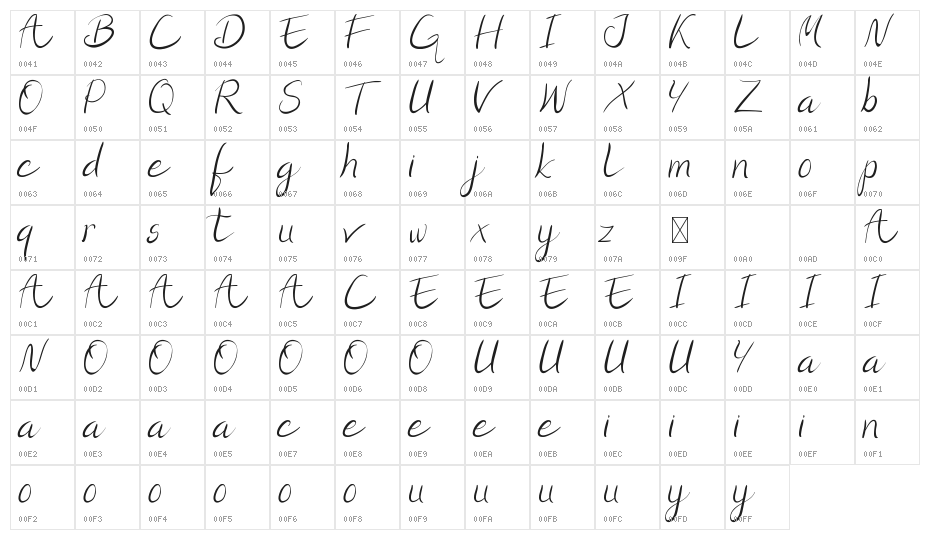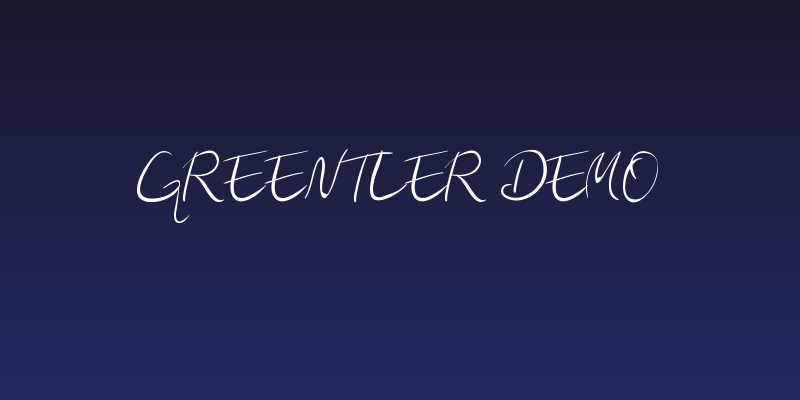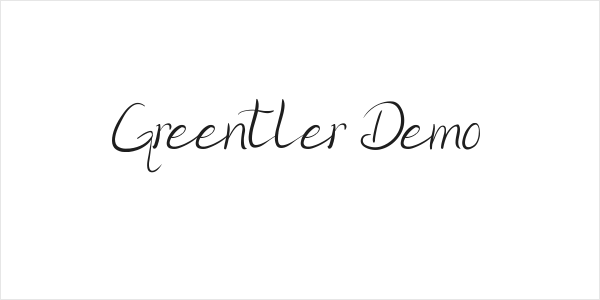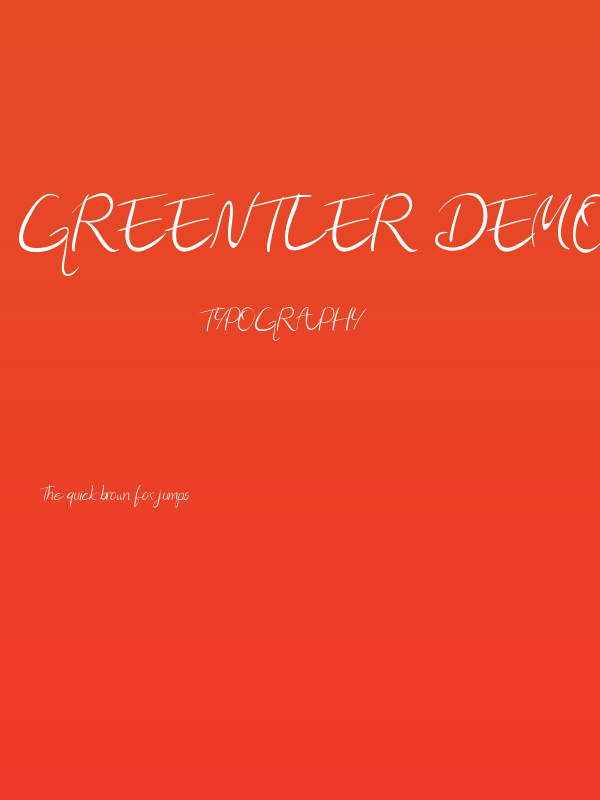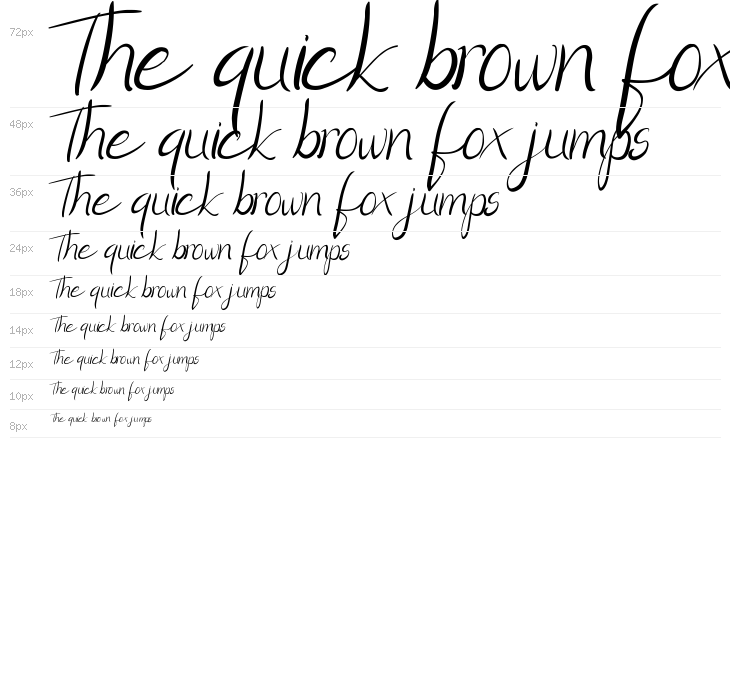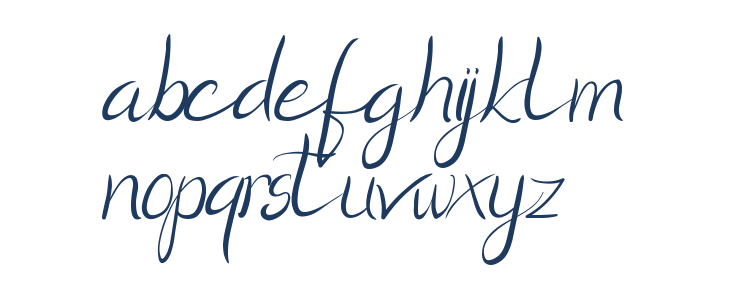
Greentler Demo Font
Greentler Demo Description
This font features an elegant, flowing script style that mimics the fluidity of handwriting. The characters are connected, creating a seamless and continuous look. The strokes are varied, with some letters having thin, delicate lines and others featuring thicker, more pronounced curves. This contrast adds a dynamic and lively feel to the text. The uppercase letters are tall and graceful, while the lowercase letters maintain a consistent baseline, enhancing readability. The font's overall appearance is sophisticated and artistic, making it suitable for creative and expressive design projects.